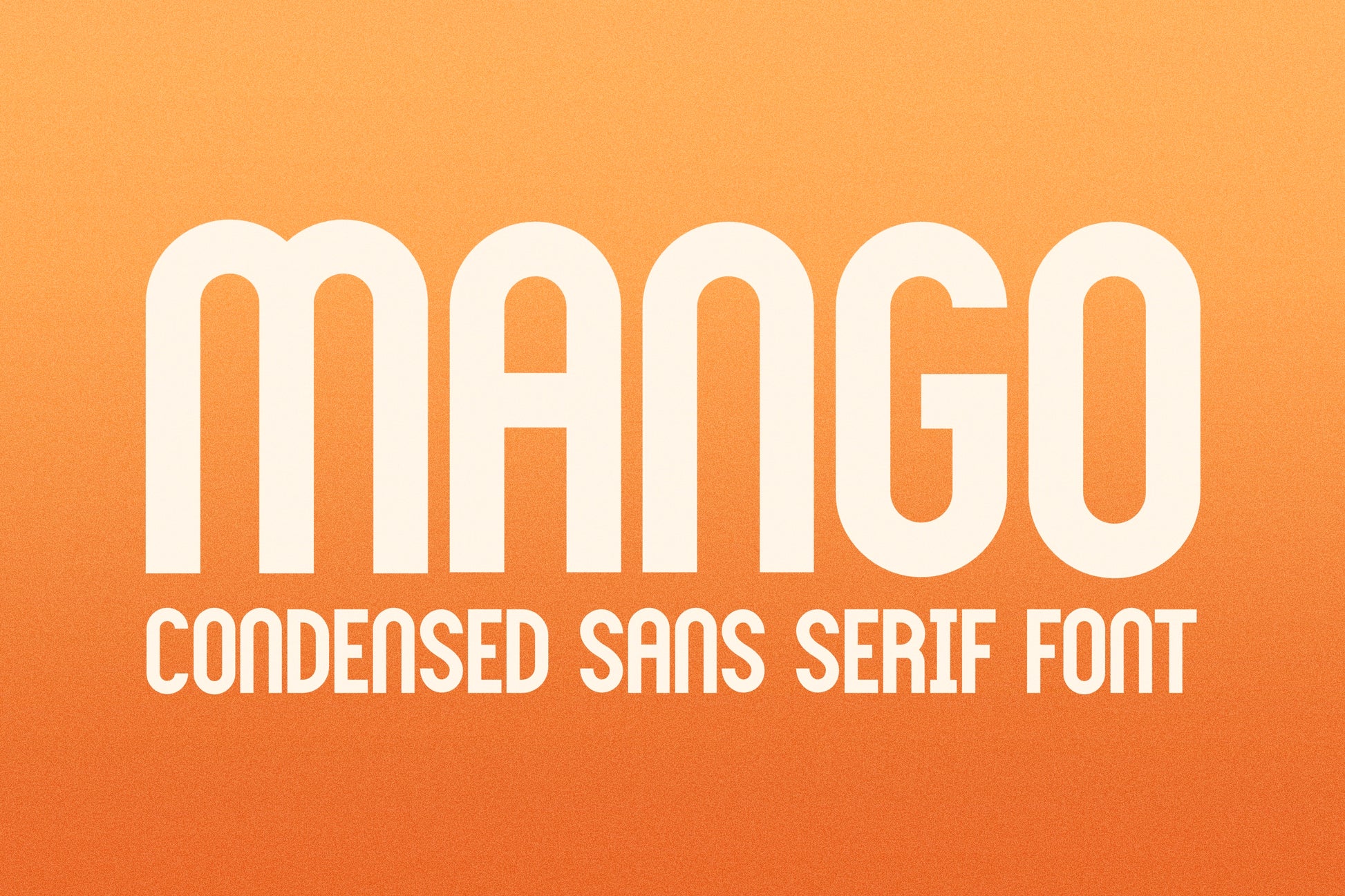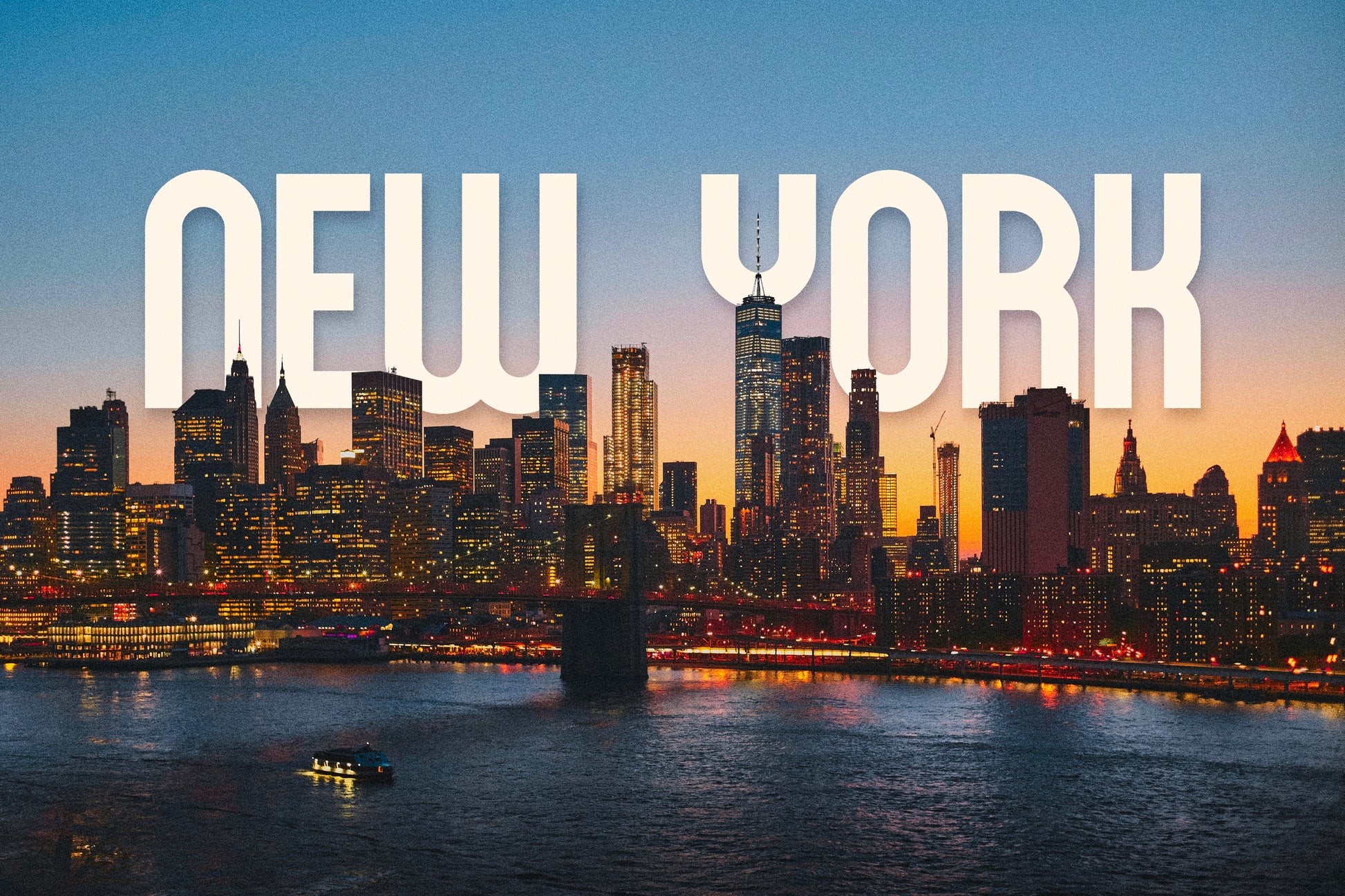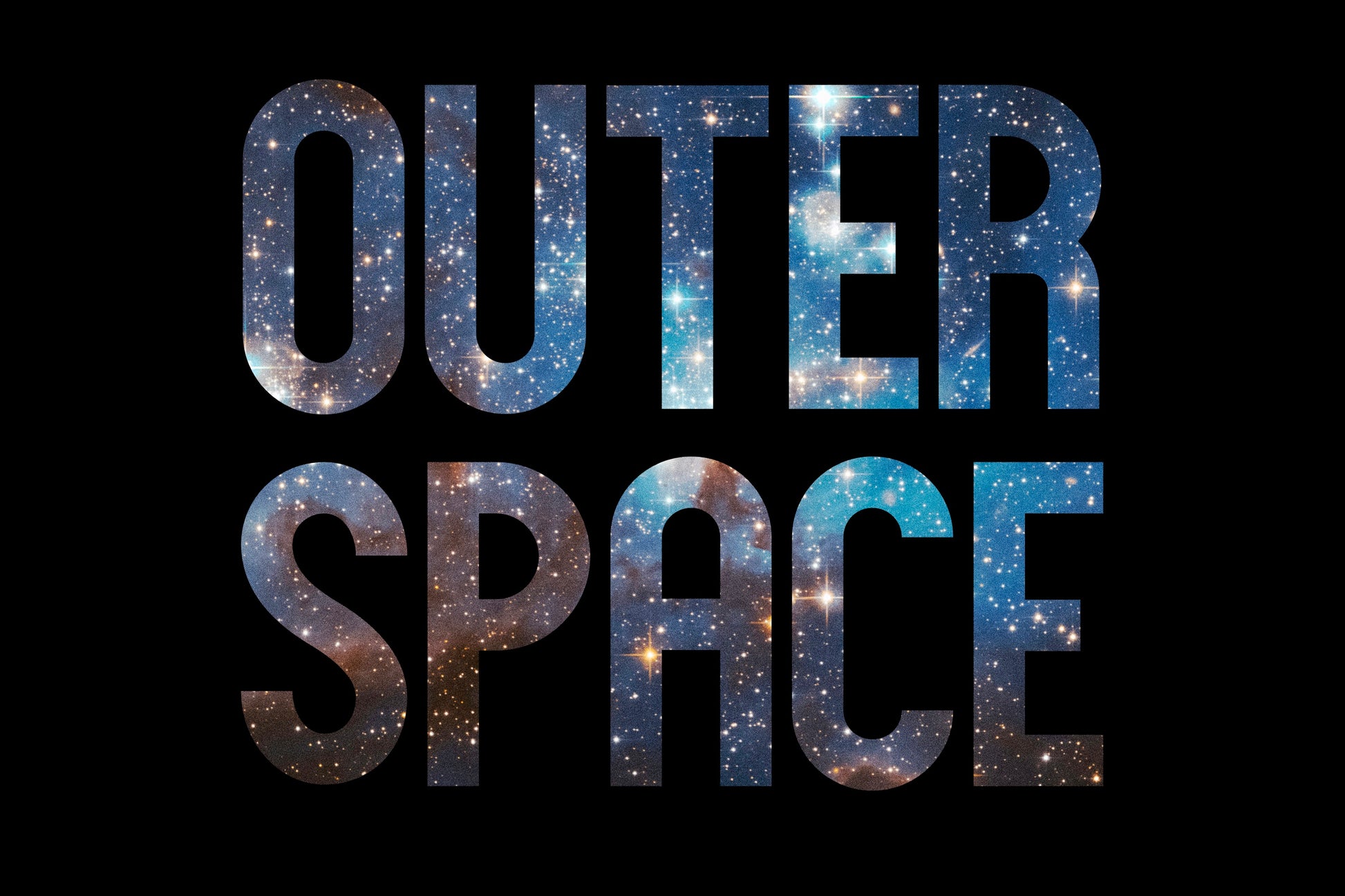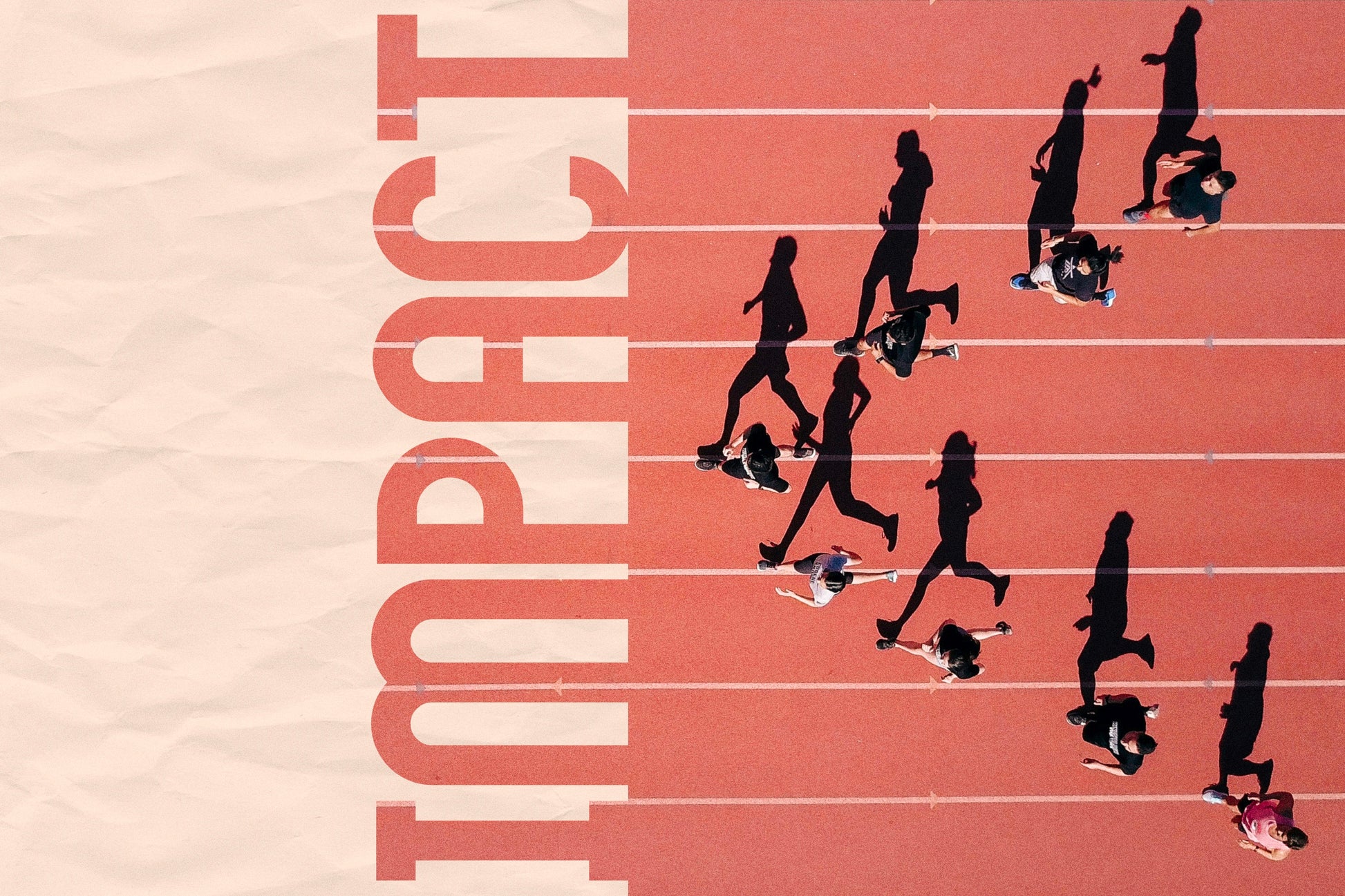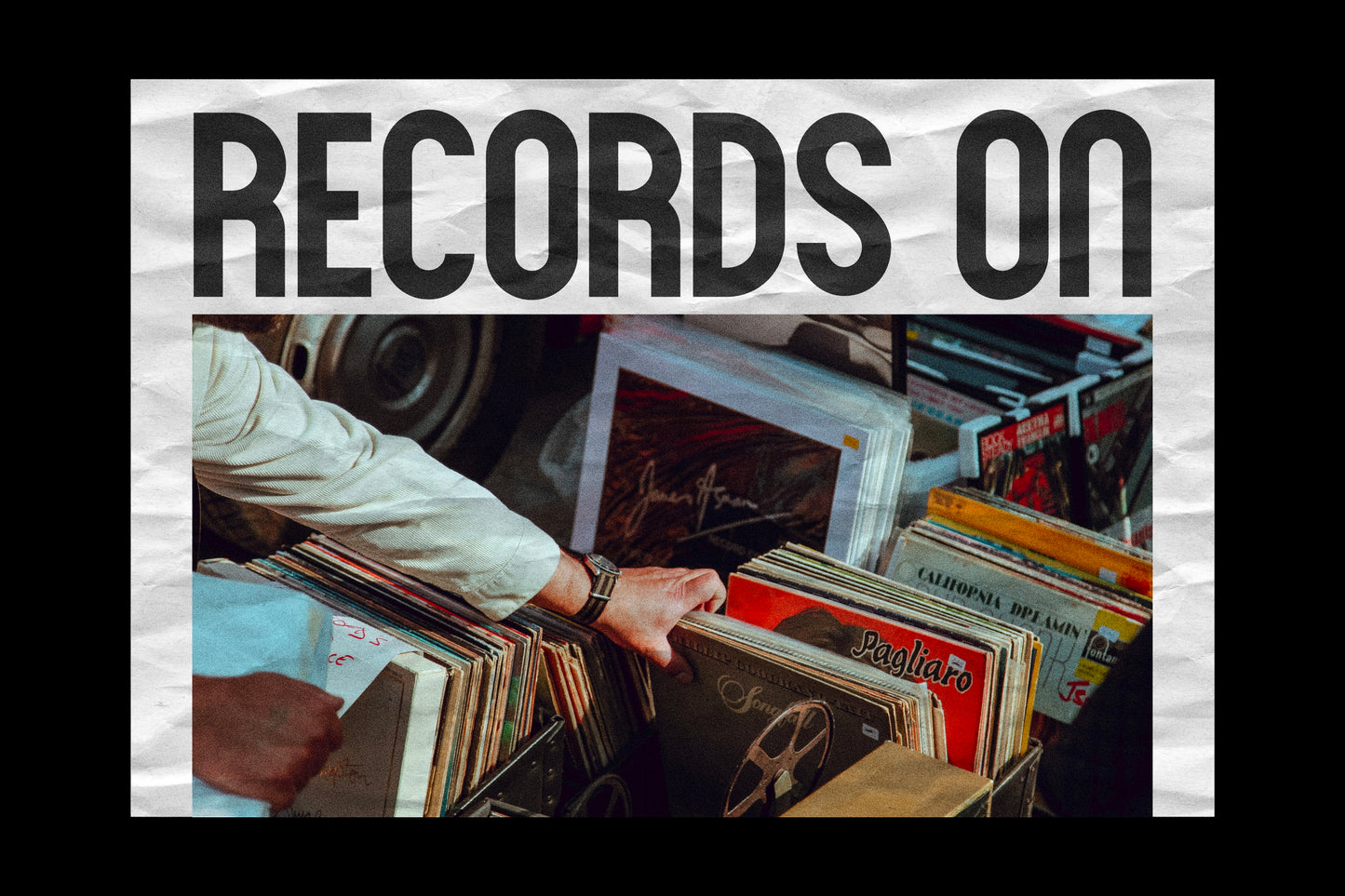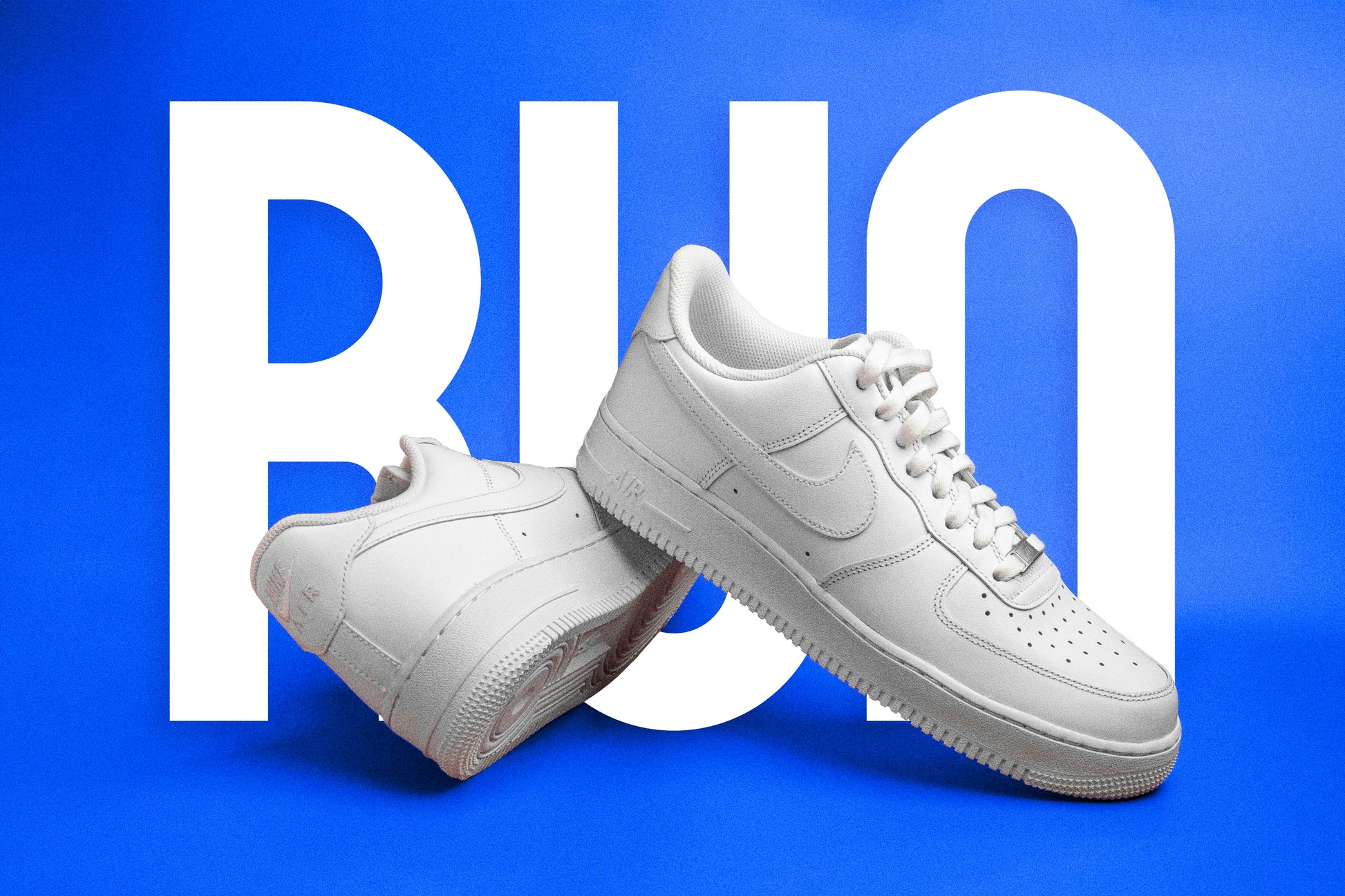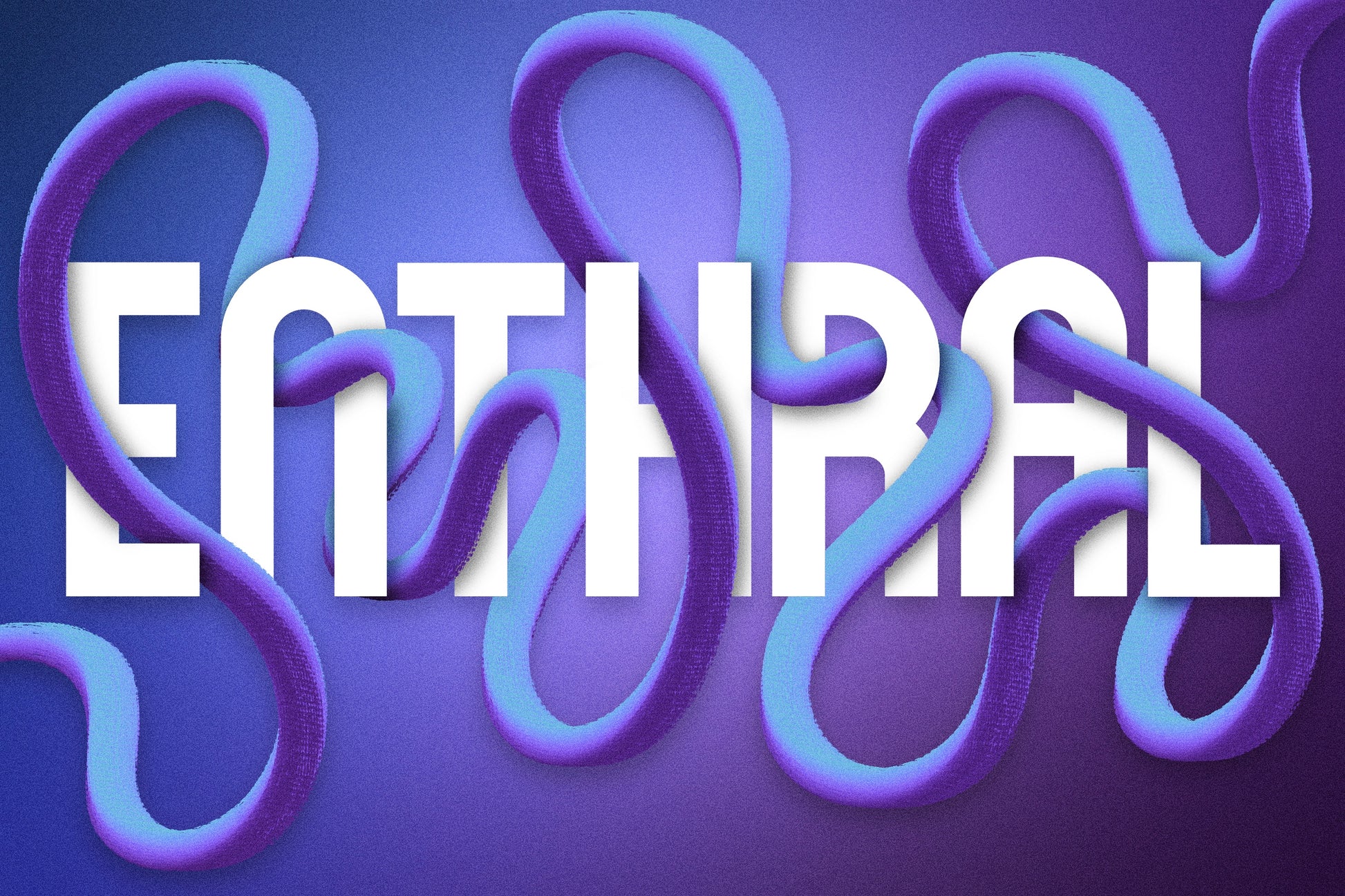
Mango | Bold Condensed Font
Introducing the Mango handwritten/hand drawn font. This condensed, bold font will add a fun, unique touch to your design! Perfect for posters, Instagram quotes, stickers, 3D type designs, magazines, t-shirts, and much more!